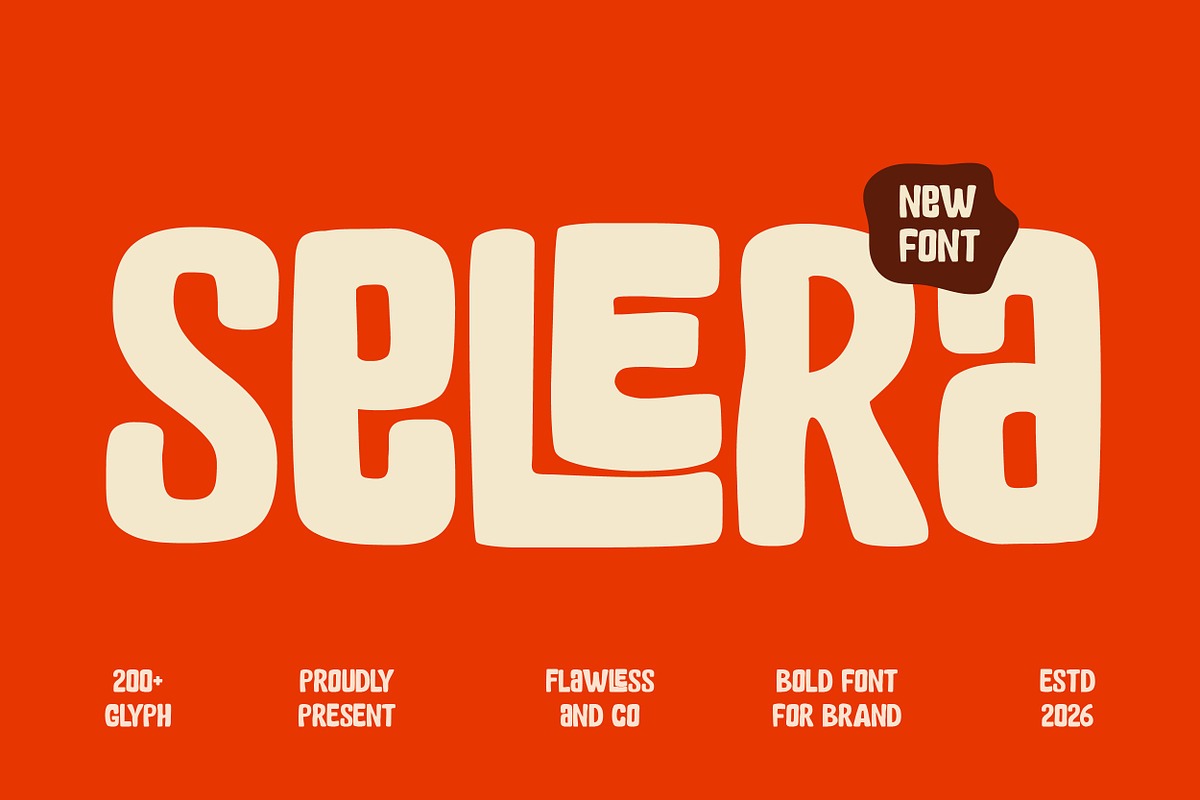
Selera – Playful Display Font
Selera – Playful Display Font is a flexible and reliable font created to fit multiple design needs, from branding and packaging to social media and editorial layouts. Selera is a modern bold display typeface designed to create a fun, flavorful, and attention-grabbing visual experience. Inspired by energetic branding styles, Selera features chunky letterforms, smooth edges, and a playful rhythm that instantly makes designs feel more lively and engaging. Its bold appearance gives excellent readability while adding a strong personality, making it perfect for brands that want to appear fresh, modern, and memorable.